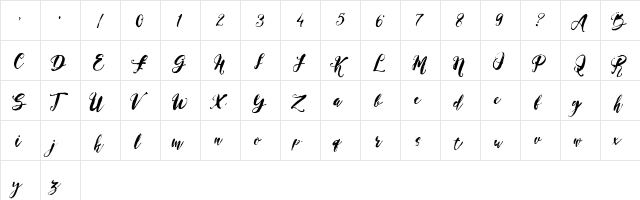
Magical Stylish Script Demo Regular
| Foundry | Ade Meiada & Eric Kurniawan |
| Designer | Fontsgood |
Design Context for Magical Stylish Script Demo Typeface
Magical Stylish Script Demo flows with the natural rhythm of handwritten lettering, making it ideal for designs that call for warmth and personal expression.
Font Pairing: Combine Magical Stylish Script Demo with a simple geometric sans for maximum contrast — the tension between flowing curves and clean structure is a classic typographic pairing.
Pro Tip: Pair Magical Stylish Script Demo with a clean sans-serif for supporting text. The contrast between fluid script and geometric structure creates an elegant typographic hierarchy.